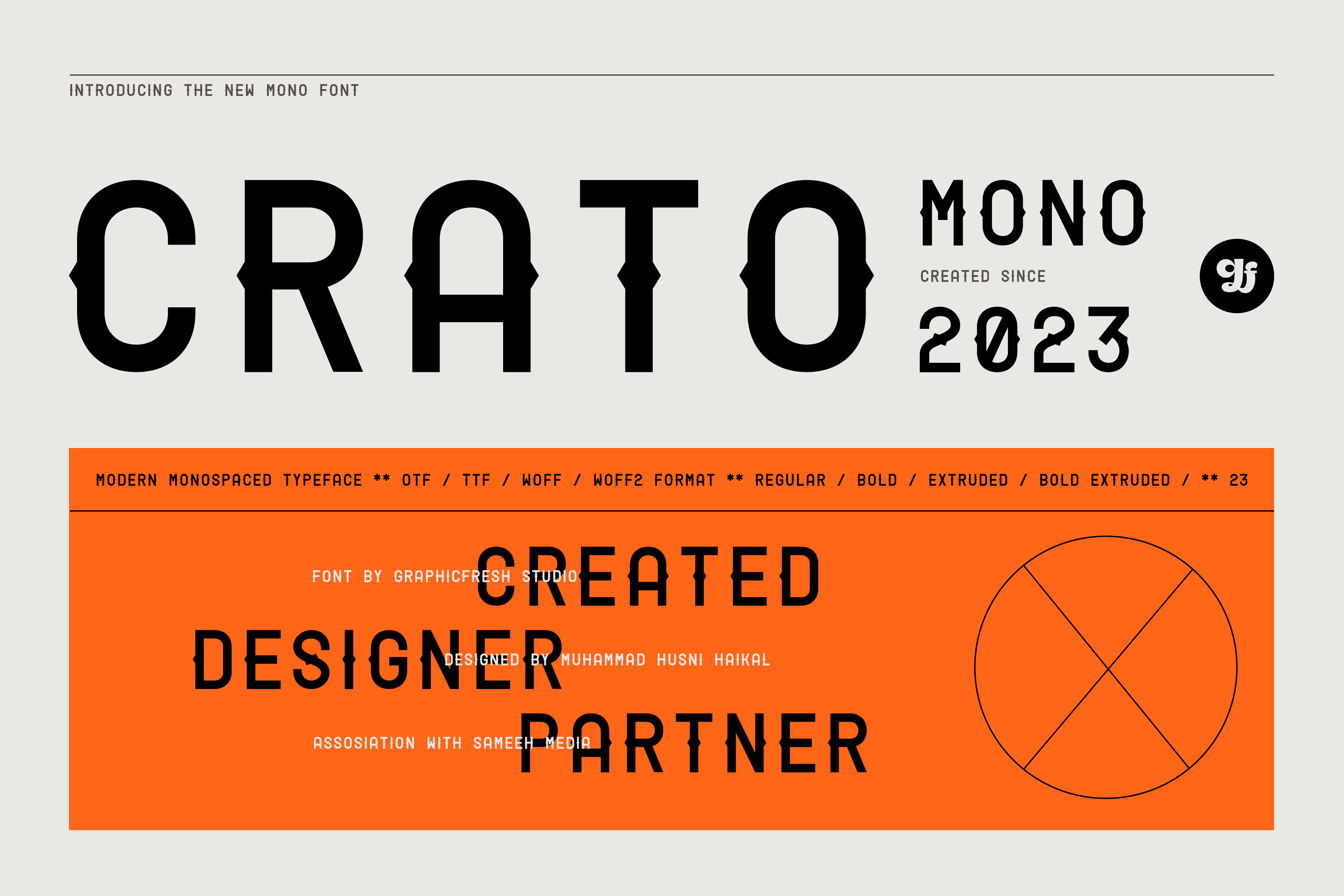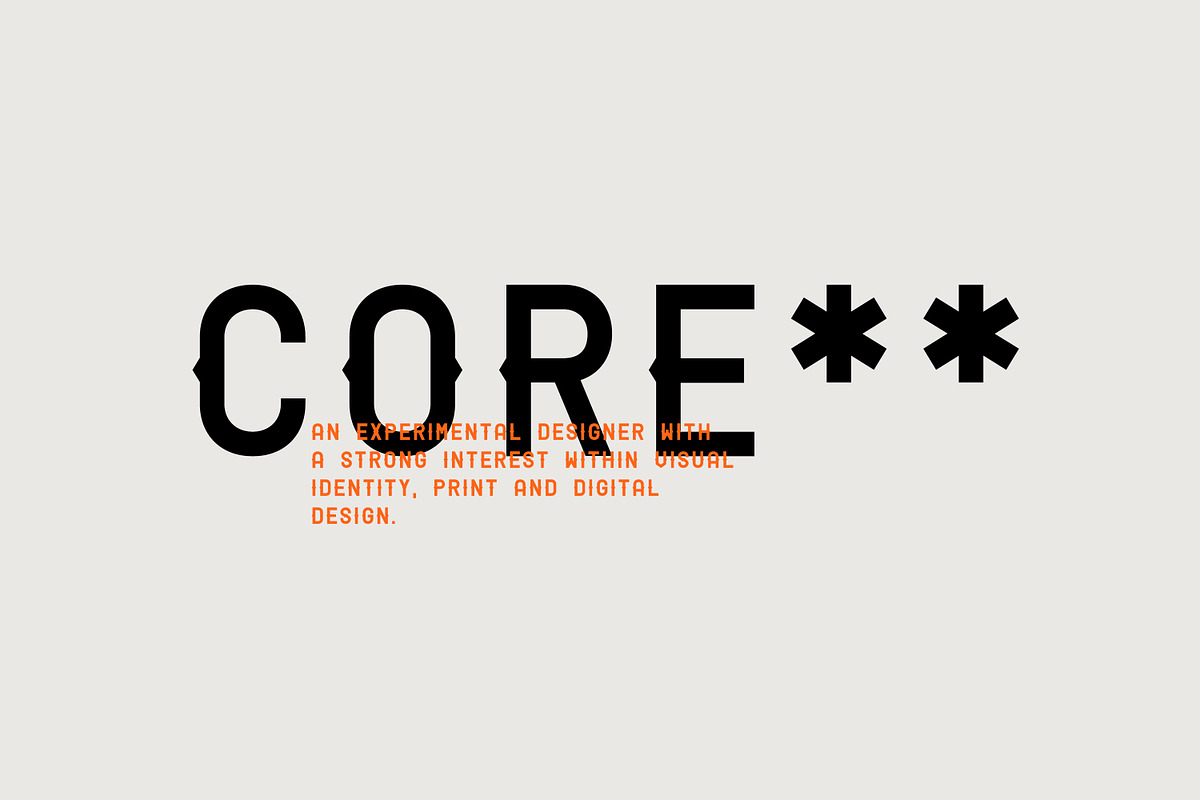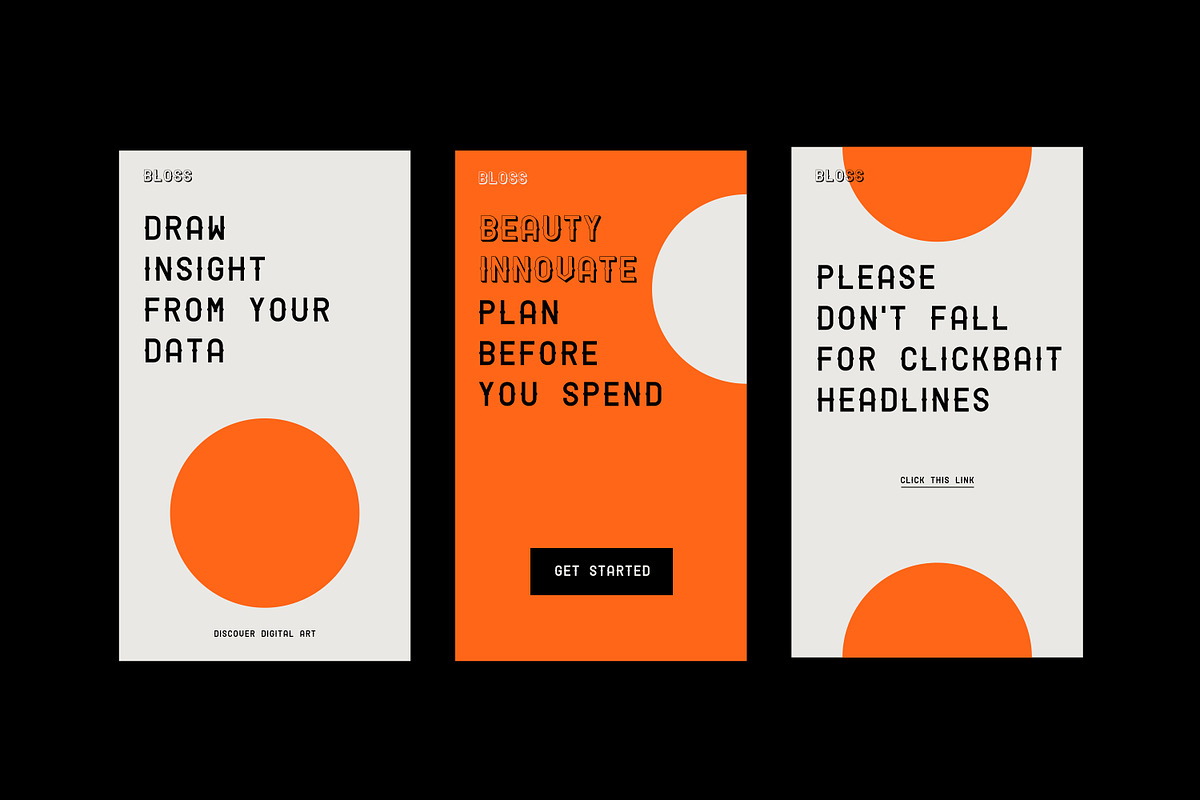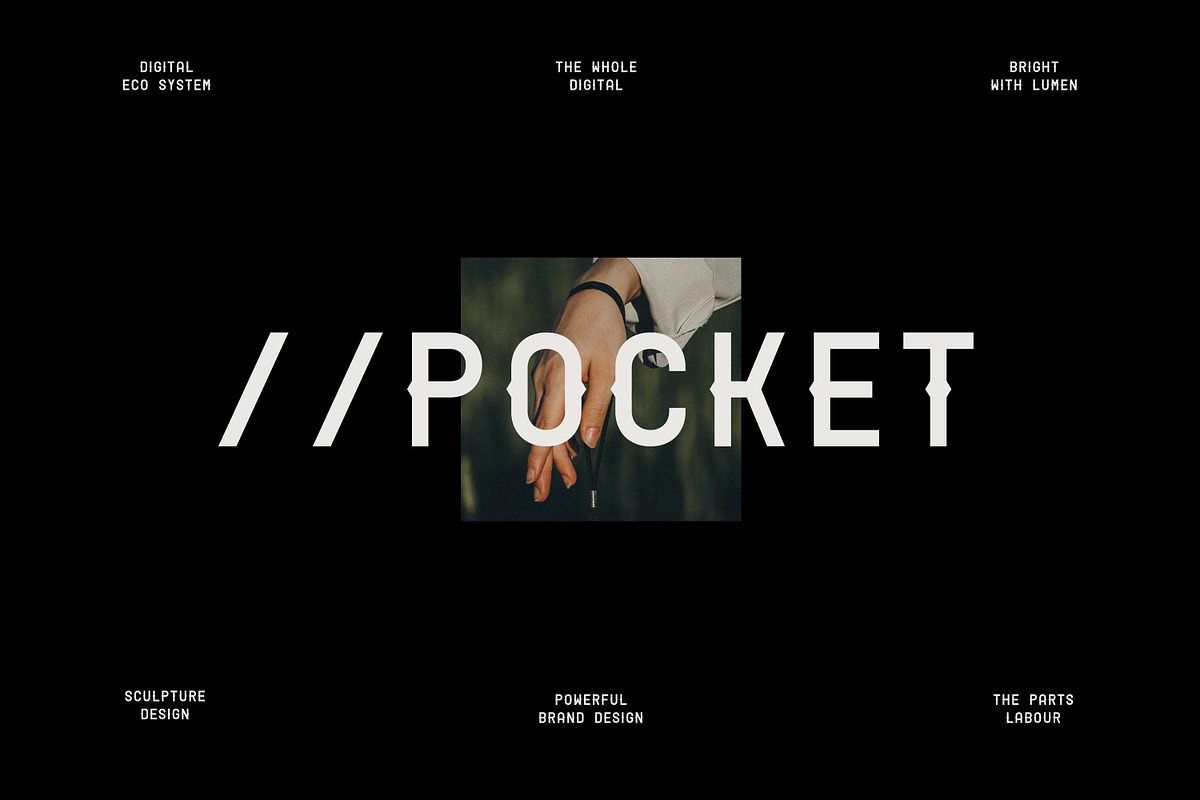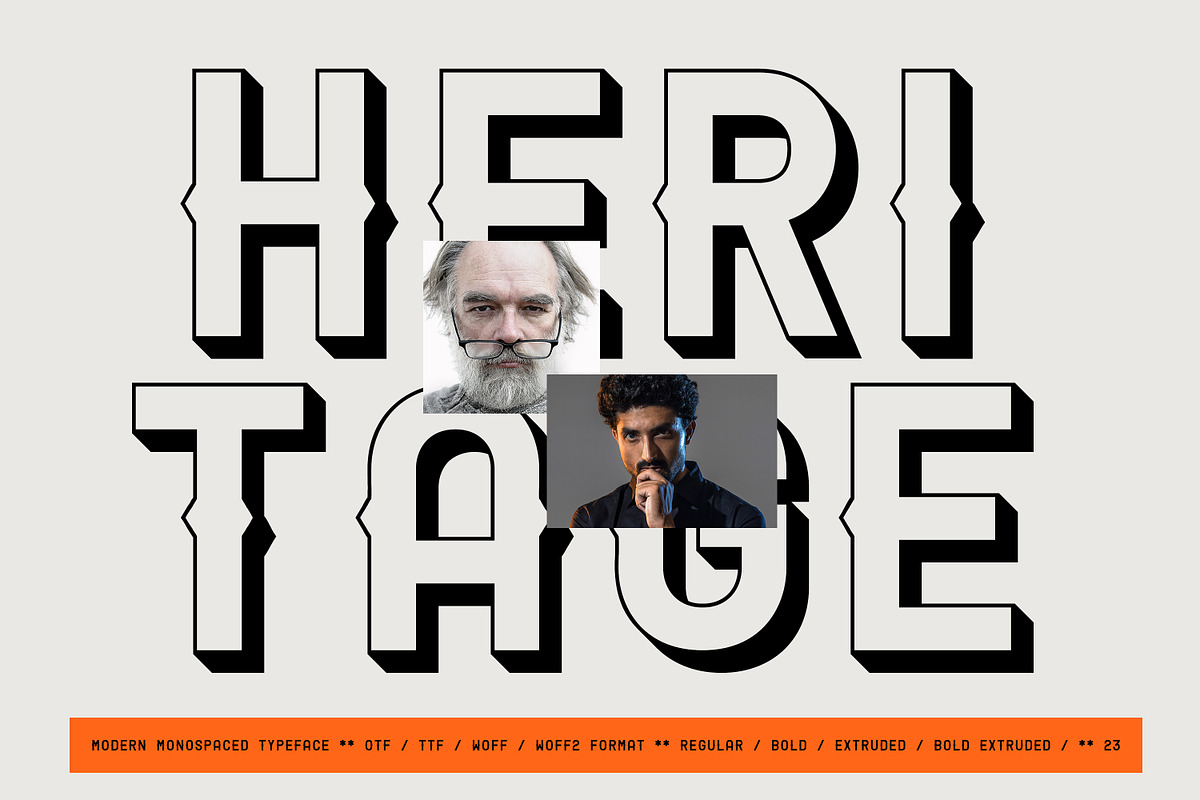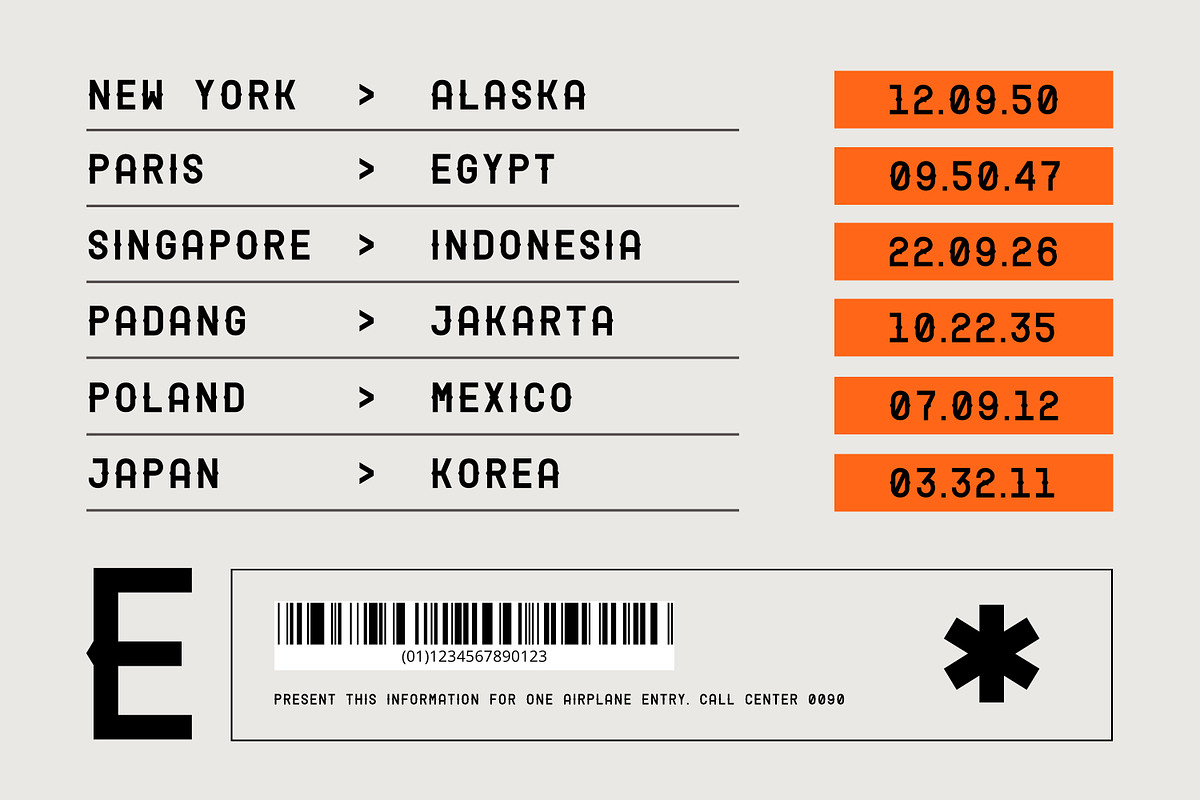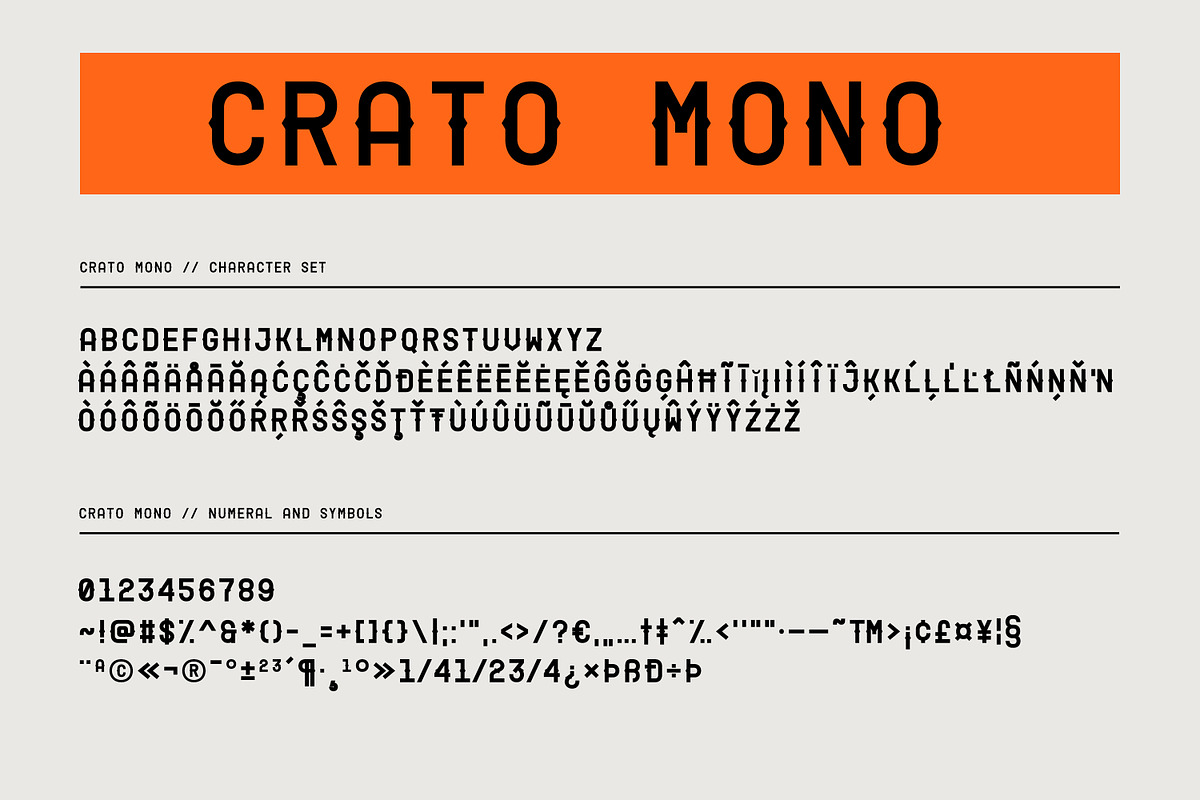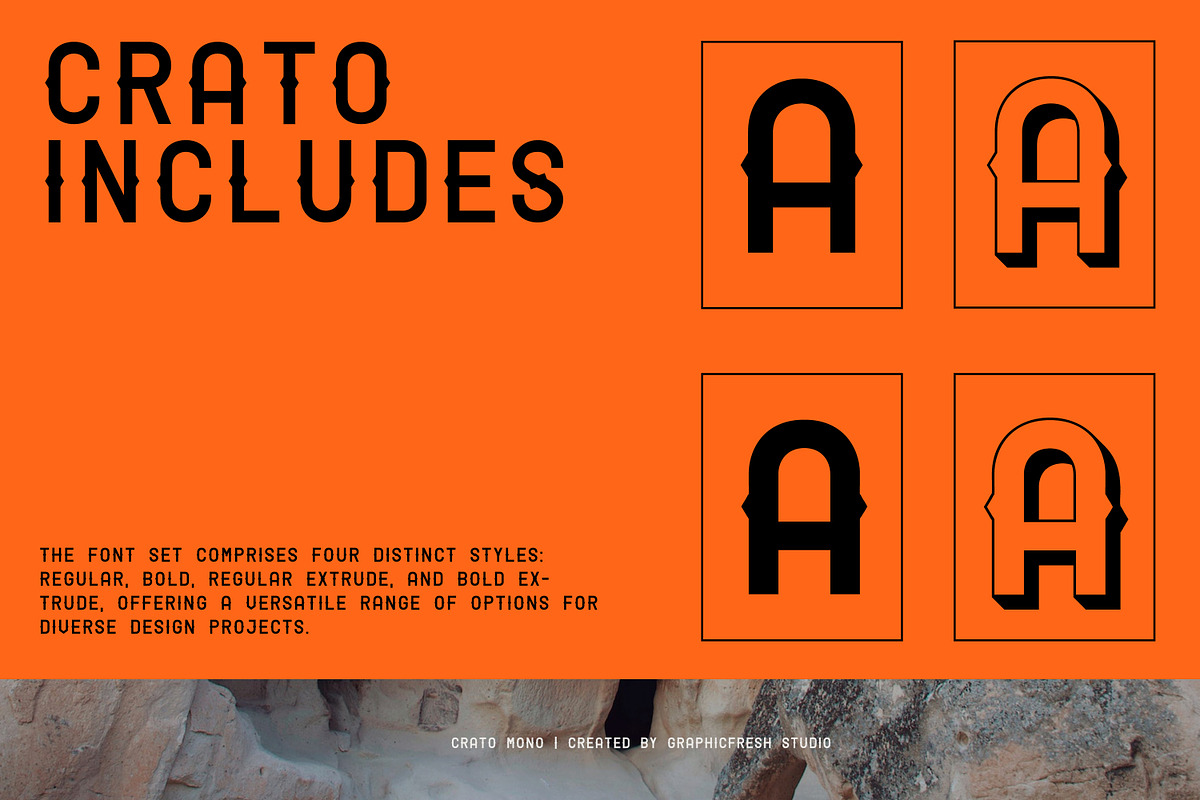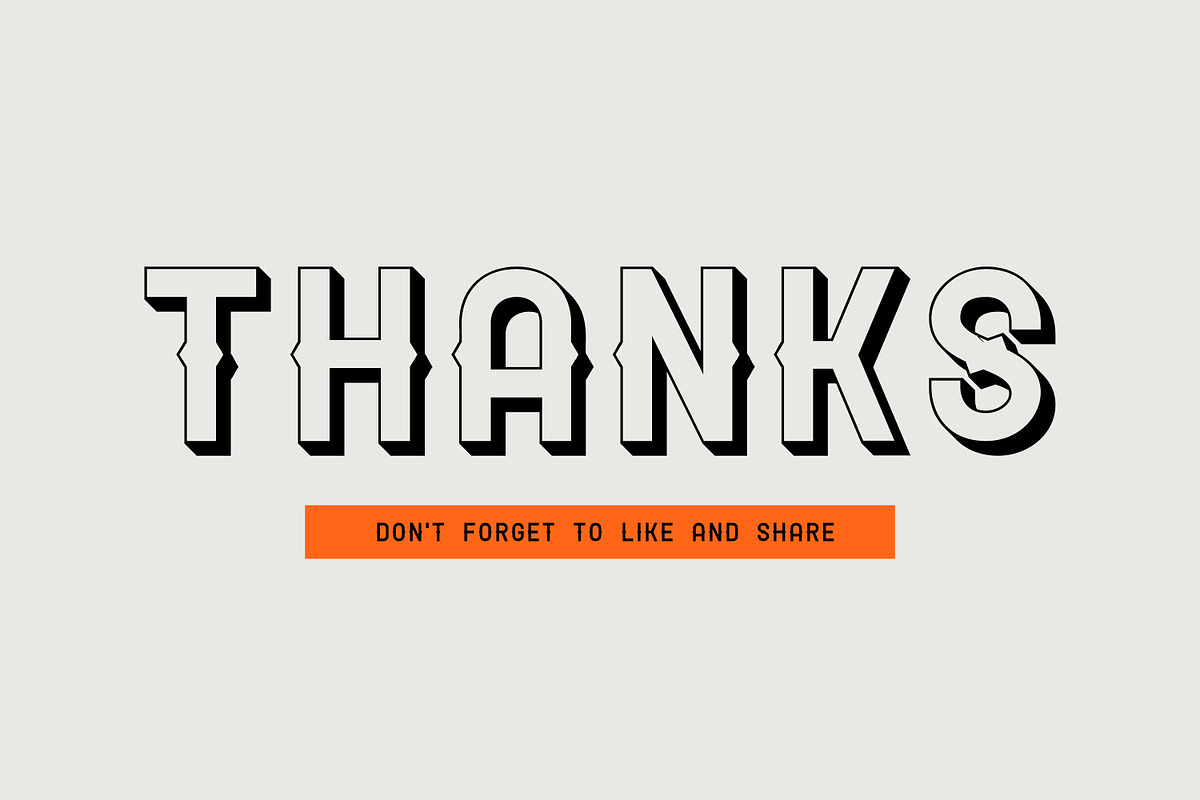
Crato Mono - Modern Monospaced Font
Discover the perfect blend of classic and modern design with our versatile monospaced font. With its timeless appeal and sans serif style, this font effortlessly captures both the vintage charm and contemporary aesthetics.
With its distinctive style and versatile appeal, this font adds a touch of nostalgia to any design, whether you're creating a retro-inspired logo or a stylish website.